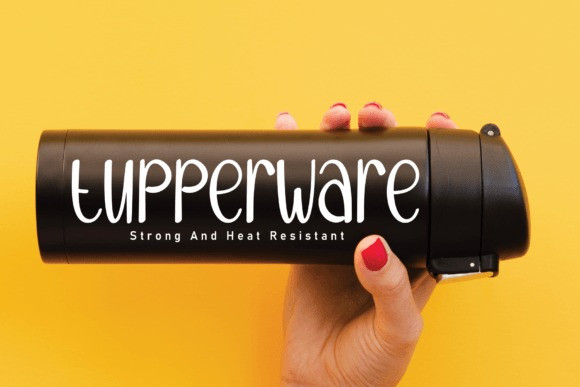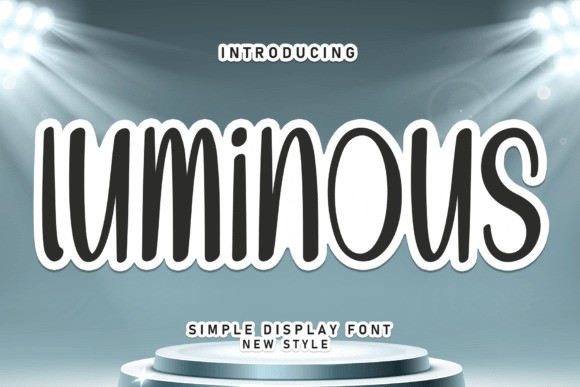
Luminous Cute Font
Luminous Cute Font is a cute and charming display font. Whimsical and a bit quirky, this font will brighten up each of your designs. Add it confidently to your projects, and you will love the results.